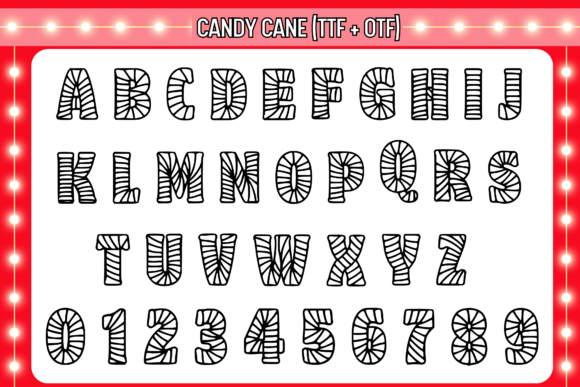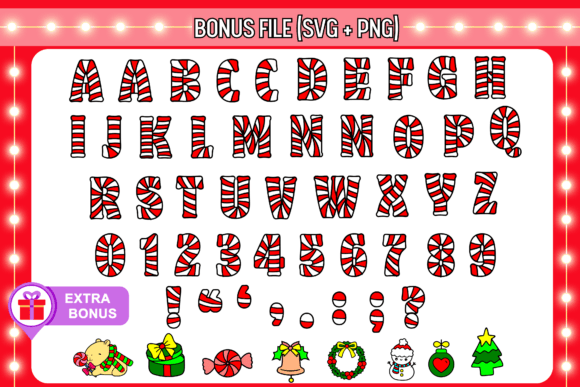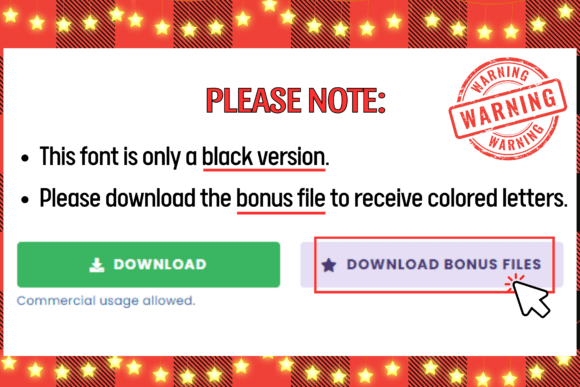
Candy Cane Font
Candy Cane is a fun decorative font that looks like real candy canes. Each letter has a red and white striped pattern, just like a candy cane! The font also comes with colorful PNG files, so you can use the letters with bright colors in your designs. It’s perfect for holiday projects or anything that needs a sweet, festive touch!